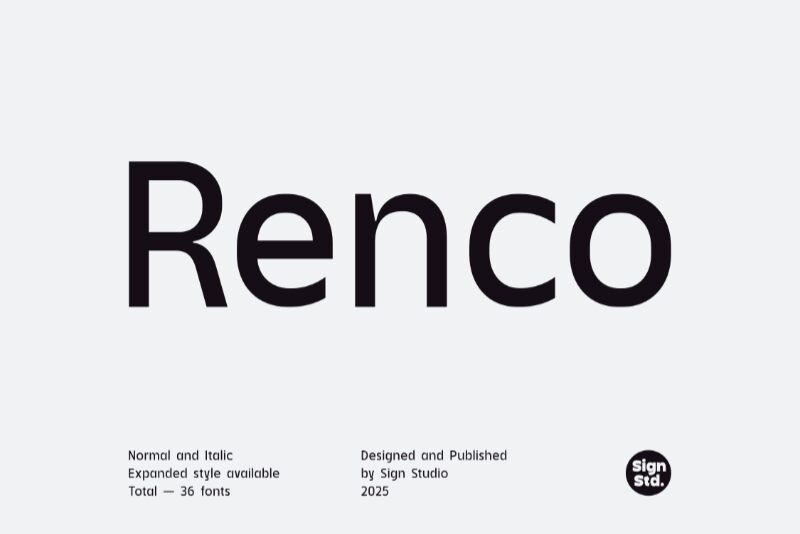
Renco Black Italic font by Sign Studio is a modern sans serif typeface that beautifully combines sweeping curves, geometric elements, and a strong presence. This bold font has an impactful appearance with its italicized characteristics making it ideal for any type of design where readability and modernization are the keys.
Use this free modern display font in advertisements, headlines, posters, banners, editorials, typography art, product packages, book covers, apparel designs such as t-shirts and caps aesthetics will look charming and exciting at once. Animated typography videos can also take advantage of it when reaching really large audiences.
Renco is a font from the sans serif family that has 9 variable thicknesses from Thin to Black. There is also an italicized version with relatively the same thickness.